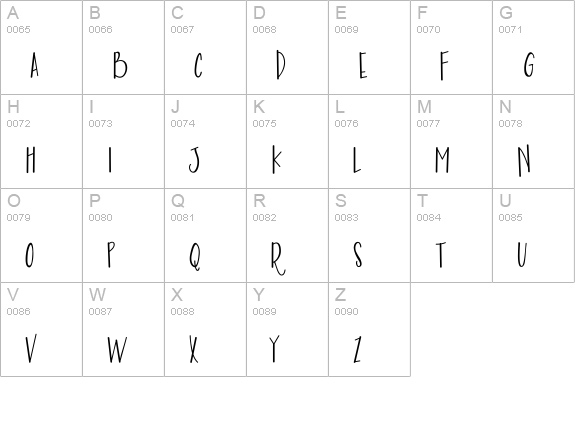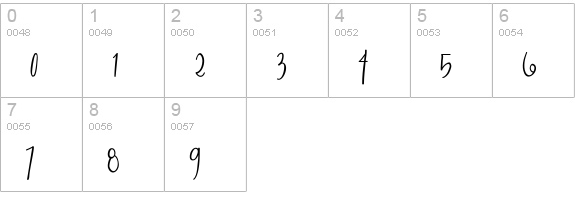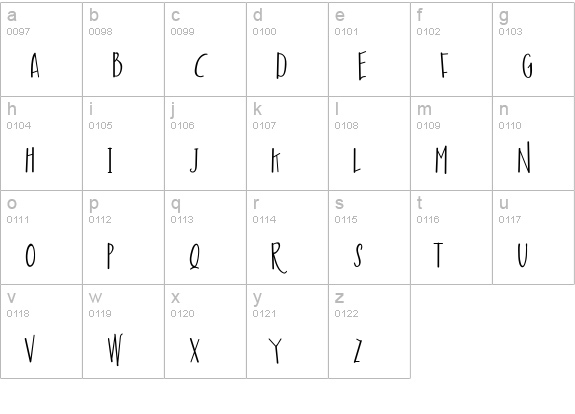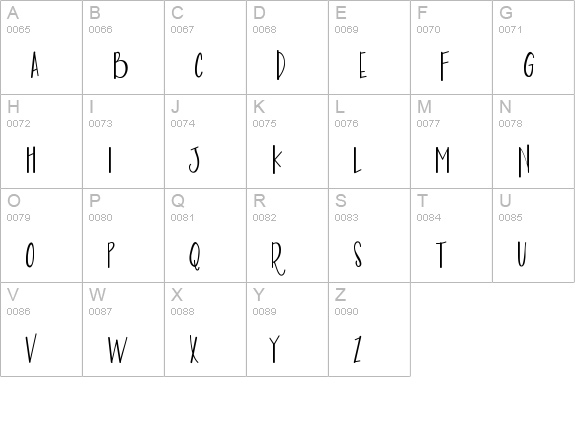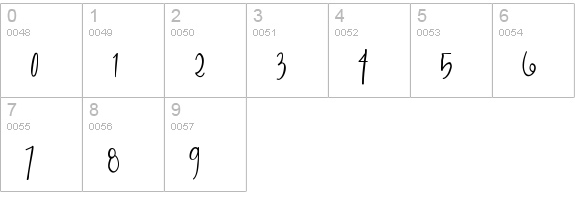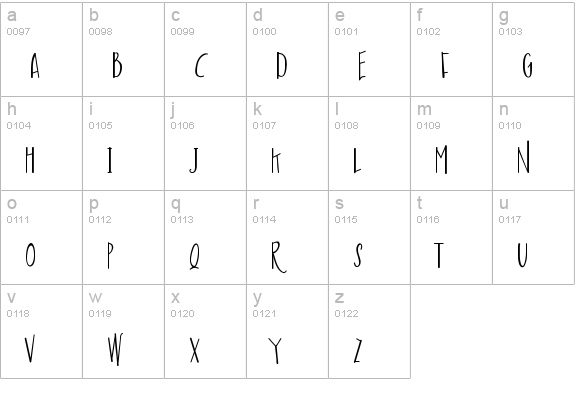
Austie Bost Envelopes Print Font Details
Austie Bost Envelopes Print font is a delightful and whimsical typeface that will add a touch of charm and playfulness to any project. Its unique hand-drawn style brings a sense of warmth and friendliness that will captivate your audience. With its varied letterforms and decorative elements, this font is perfect for creating eye-catching headlines, invitations, greeting cards, and more. What makes Austie Bost Envelopes Print font truly special is that it is available for free download at FontsMarket.com. Yes, you read that right – this incredible font can be yours without spending a dime! FontsMarket.com is a trusted source for high-quality fonts, and they are generously offering this gem of a font for free. Whether you're a designer looking to add a touch of whimsy to your projects or an individual wanting to personalize your digital creations, Austie Bost Envelopes Print font is the perfect choice. Its versatility and charm make it suitable for a wide range of applications, from scrapbooking and crafting to branding and marketing materials. So, why wait? Head over to FontsMarket.com and download Austie Bost Envelopes Print font today. Discover the joy and creativity this font will bring to your designs, all without spending a penny. It's time to unleash your imagination and let Austie Bost Envelopes Print font be your creative companion.